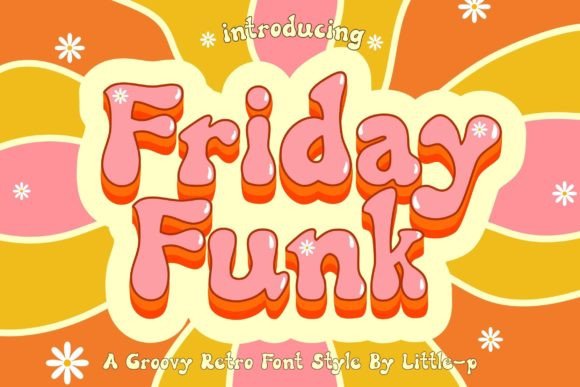
Introducing Friday Funk Font: The Groovy Retro Font for Your Creative Projects
Are you looking for a font that adds a touch of nostalgia and a dash of funk to your projects? Look no further than the Friday Funk Font, a stylish and evocative typeface that takes you on a journey back to the vibrant vibes of the 60s and 70s. With its distinctive and timeless charm, this font is perfect for designers, artists, and creatives who want to add a retro flair to their work.
The Inspiration Behind Friday Funk Font
The Friday Funk Font is inspired by the iconic typography of the 1960s and 1970s, an era known for its bold, colorful, and playful design aesthetic. During this time, fonts were often used to make a statement, and the typography was frequently ornate, curvaceous, and full of personality. The Friday Funk Font captures the essence of this era, with its swooping curves, tapered strokes, and funky flair.
Three Unique Styles to Suit Your Creative Needs
One of the standout features of the Friday Funk Font is its versatility. The font comes in three unique styles – Regular, Outline, and Bubble – each offering a distinct look and feel. This allows you to experiment with different styles to find the one that best suits your project.
- Regular Style: The regular style is the core of the Friday Funk Font, with its smooth, flowing lines and curvaceous strokes. This style is perfect for creating eye-catching headlines, titles, and text that demands attention.
- Outline Style: The outline style offers a bold, outlined version of the font, ideal for creating striking contrast and adding depth to your designs. This style works well for designs that require a bit of edge and sophistication.
- Bubble Style: The bubble style is perhaps the most playful of the three, with its rounded, bubble-like curves and whimsical flair. This style is great for creating fun, energetic designs that are sure to grab attention.
Endless Creative Possibilities with Friday Funk Font
The Friday Funk Font is an incredibly versatile typeface that can be used in a wide range of creative projects. Whether you’re designing:
- Trendy Shirts: Add a touch of retro flair to your apparel designs with the Friday Funk Font. The font’s bold, playful style is sure to make your shirts stand out.
- Eye-Catching Stickers: Create stickers that pop with the Friday Funk Font. The font’s curvaceous lines and funky style make it perfect for creating stickers that grab attention.
- Memorable Logos: Use the Friday Funk Font to create logos that are both memorable and stylish. The font’s distinctive charm is sure to make your logo stand out.
- Captivating Advertisements: Add a touch of nostalgia to your ad designs with the Friday Funk Font. The font’s retro style is sure to grab attention and leave a lasting impression.
- Stylish Packaging: Use the Friday Funk Font to create packaging that’s both stylish and eye-catching. The font’s bold, playful style is perfect for creating packaging that stands out on store shelves.
- Groovy Posters: Create posters that are both fun and funky with the Friday Funk Font. The font’s curvaceous lines and whimsical flair make it perfect for creating posters that demand attention.
The Benefits of Using Friday Funk Font
So why choose the Friday Funk Font for your creative projects? Here are just a few benefits of using this amazing font:
- Instant Retro Flair: The Friday Funk Font adds an instant touch of retro flair to your designs, making them stand out in a crowded marketplace.
- Versatility: With three unique styles to choose from, the Friday Funk Font offers endless creative possibilities.
- Timeless Charm: The Friday Funk Font has a timeless charm that never goes out of style, making it a great investment for any designer or creative.